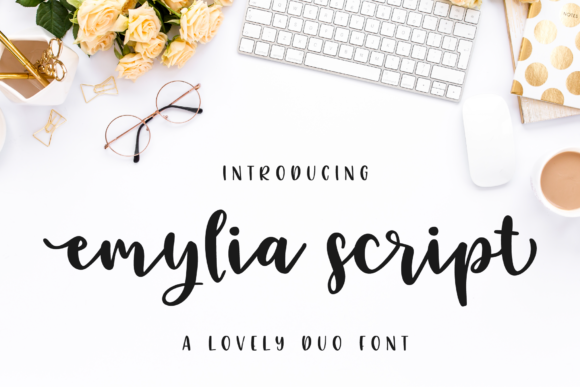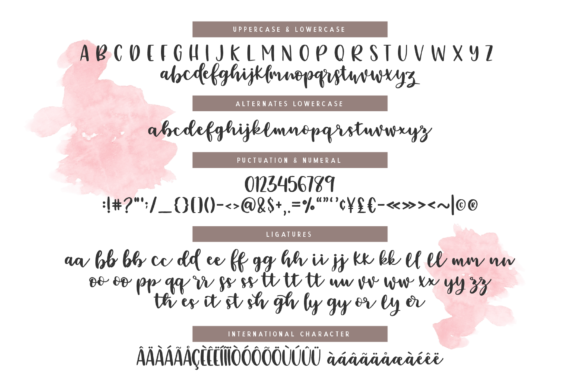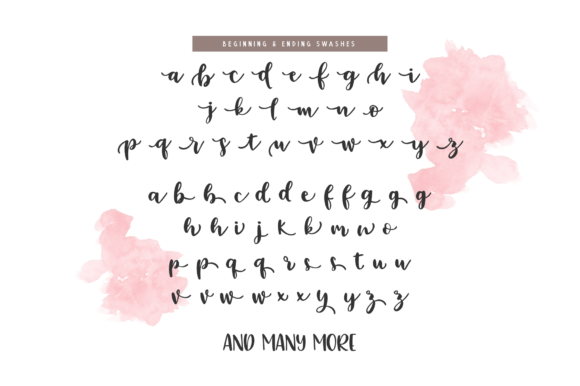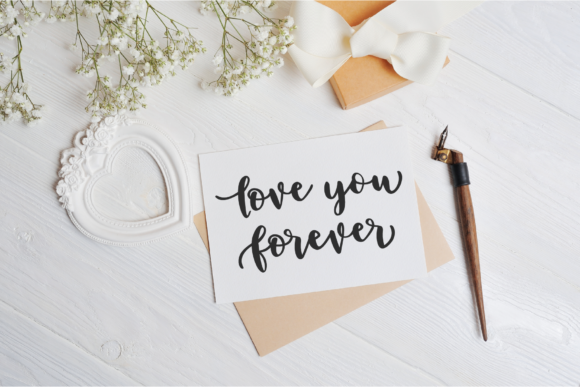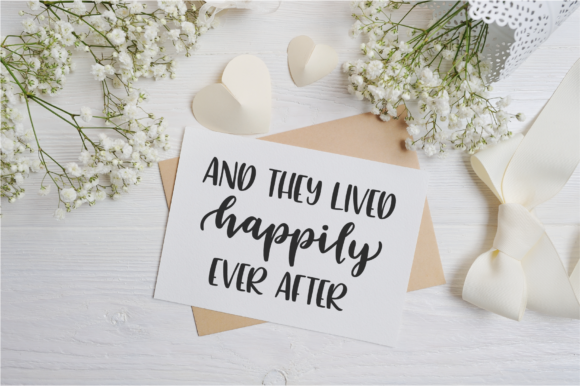
Emylia Script Font
About Emylia Script Font
The Emylia Script is a beautiful handwritten font. It has a feminine feel which makes it perfect for every design that is looking for an elegant touch.